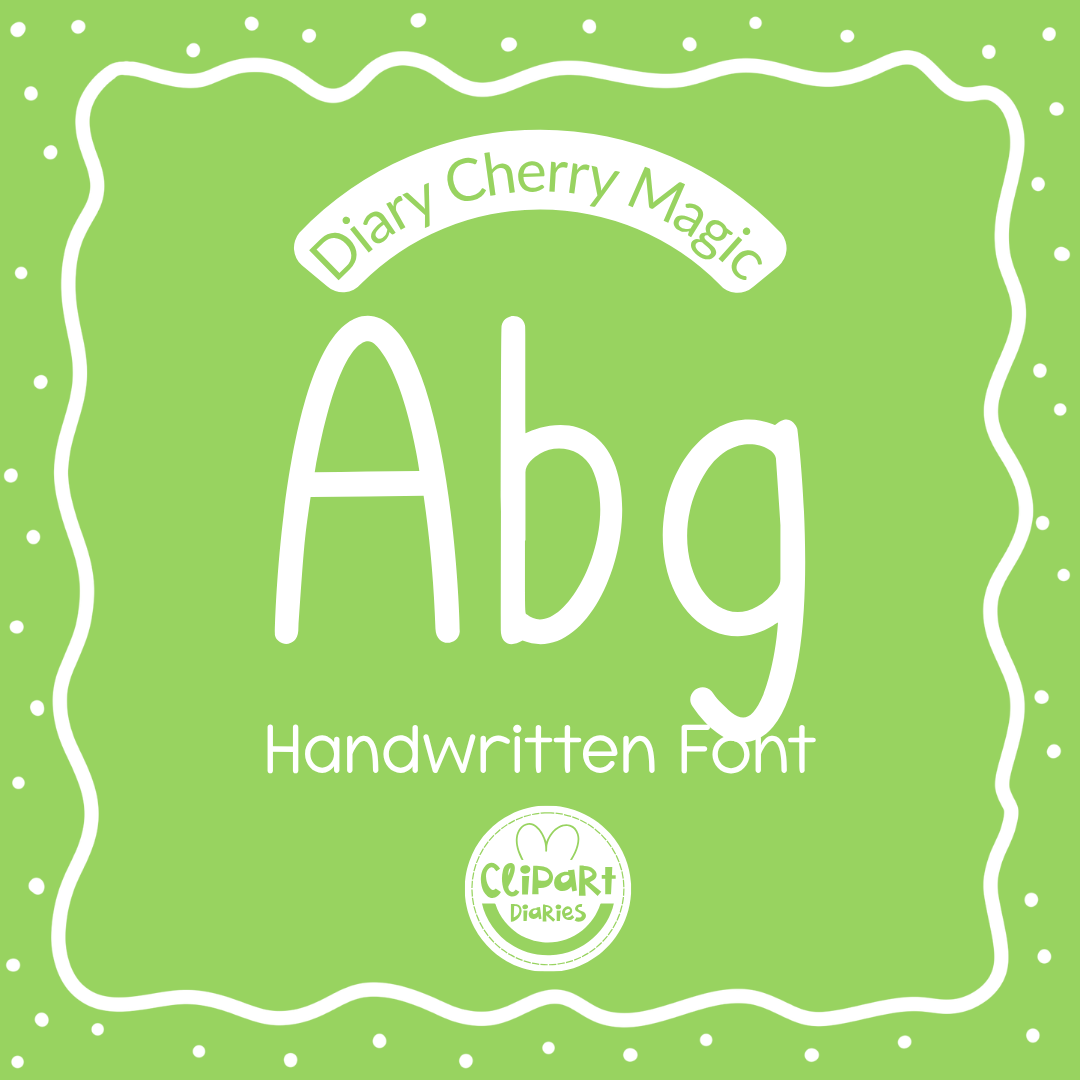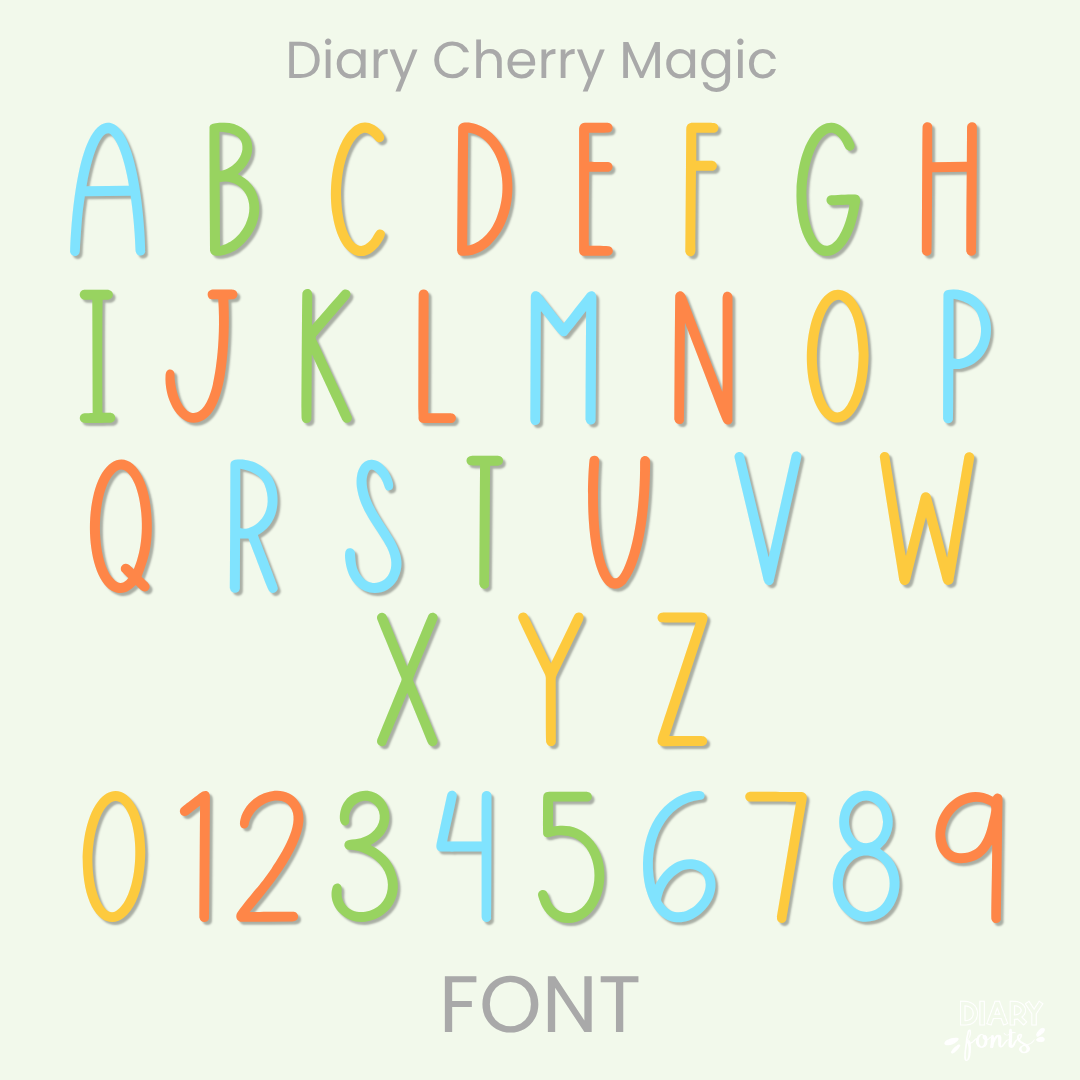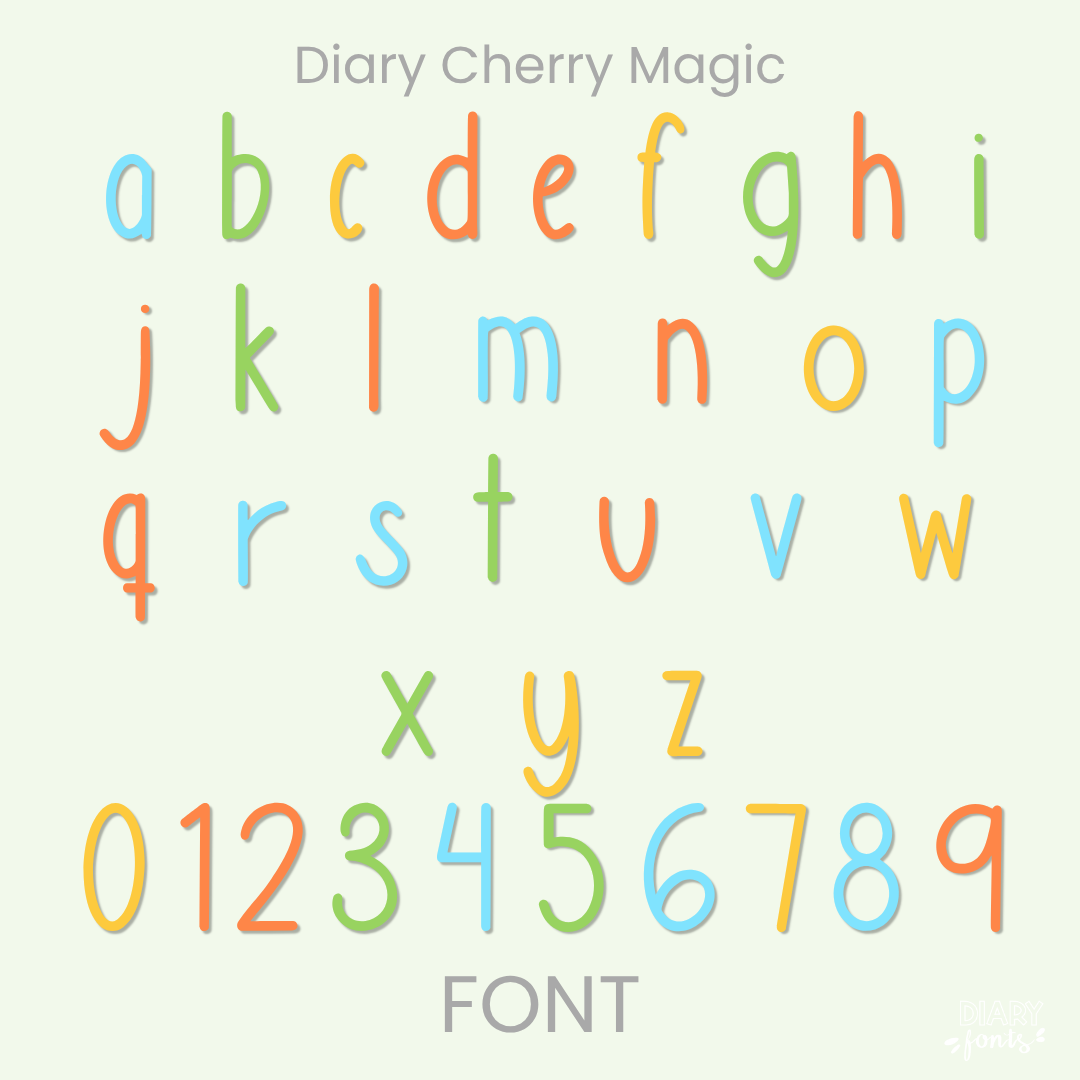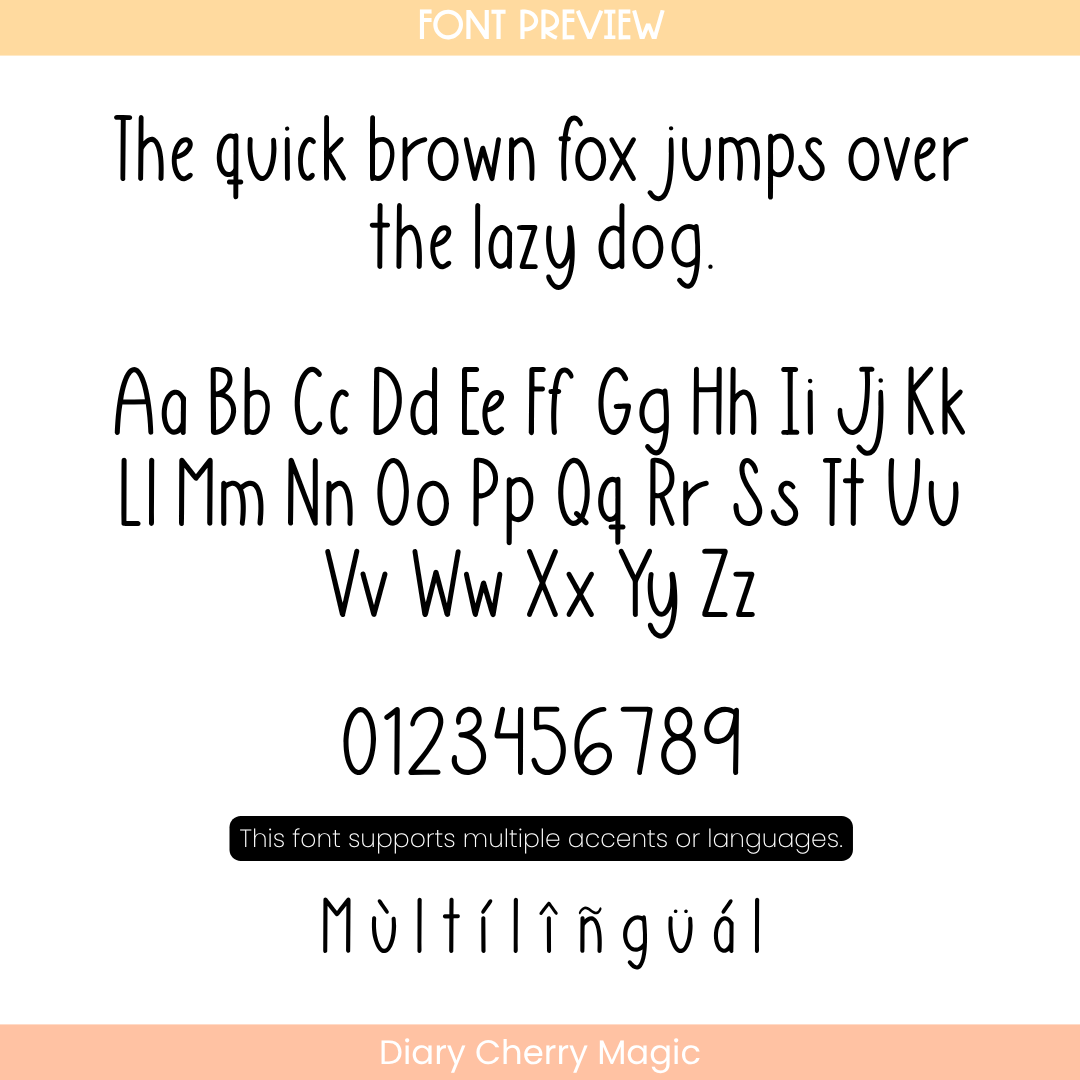
If you want to add a little bit of magic and warmth to your designs, Diary Cherry Magic is a lovely choice. It features thin, relaxed letterforms that mimic comfortable everyday handwriting. Because the spacing is clear and the style is natural, it stays easy for students to read while looking much more playful and approachable than a standard computer font. It works beautifully for poetry units, cozy classroom signs, student notes, and creative digital planners. The font includes a full set of uppercase and lowercase letters, numbers, and multiple accents to support different languages. It is ready for use in Canva, MS Office, and Adobe Apps, and it works perfectly on the iPad with GoodNotes and Procreate. This font gives a sweet, inviting look to both personal and commercial projects.